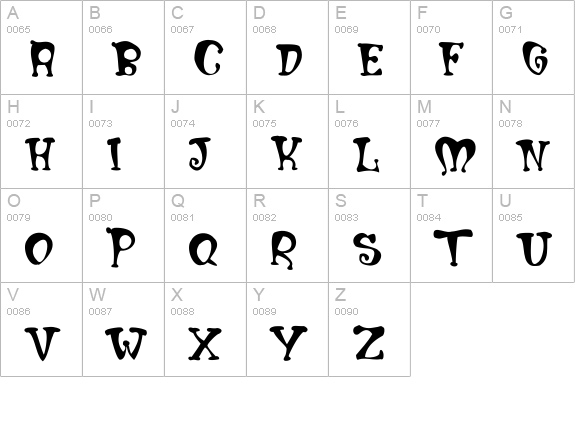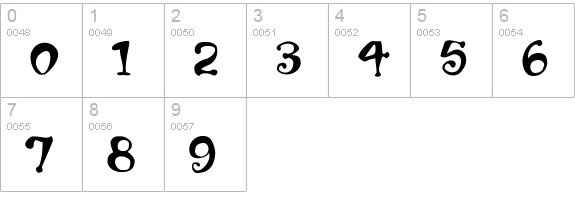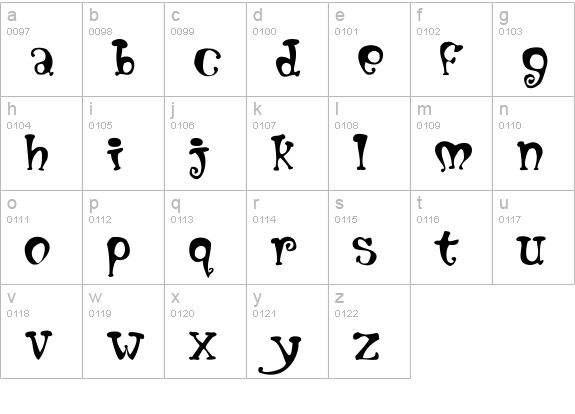
Mumblypegs Font Details
Introducing Mumblypegs font, a delightful and playful typeface that will add a touch of whimsy to any project. With its quirky and unique design, Mumblypegs is perfect for adding a fun and lighthearted feel to your designs. This font is versatile and can be used for a variety of purposes, from branding to packaging to social media graphics. What makes Mumblypegs even more appealing is that it is completely free to download at FontsMarket.com. Yes, you read that right - you can get your hands on this charming font at no cost at all! Don't miss out on the opportunity to enhance your creative projects with the delightful Mumblypegs font. Download it today and let your imagination run wild!